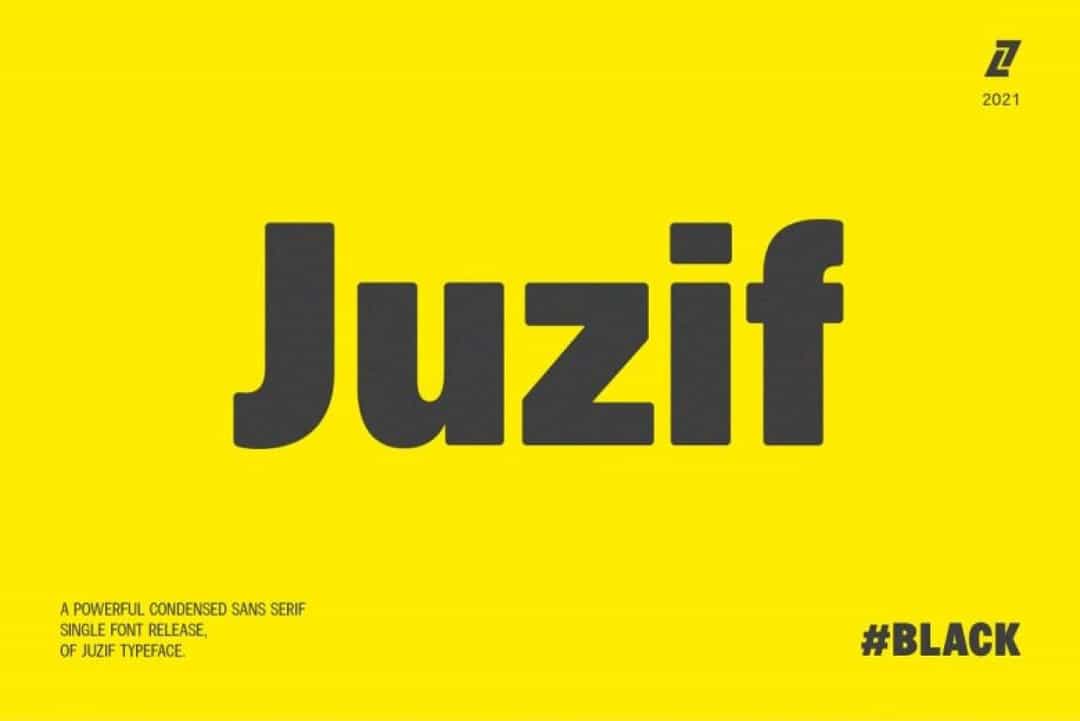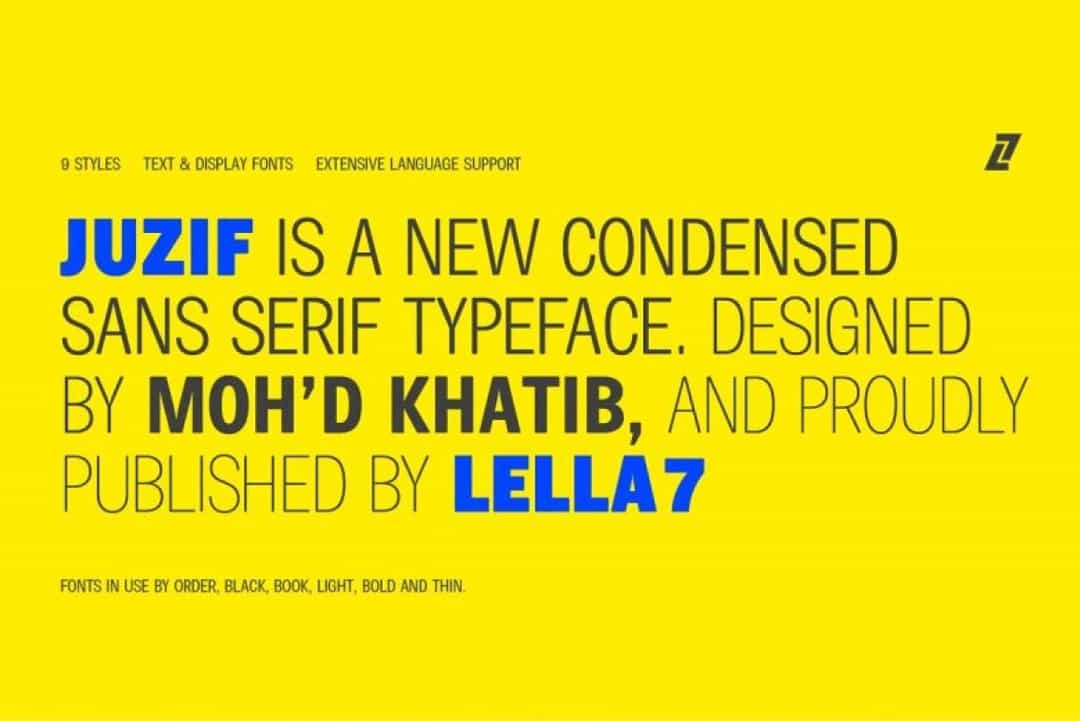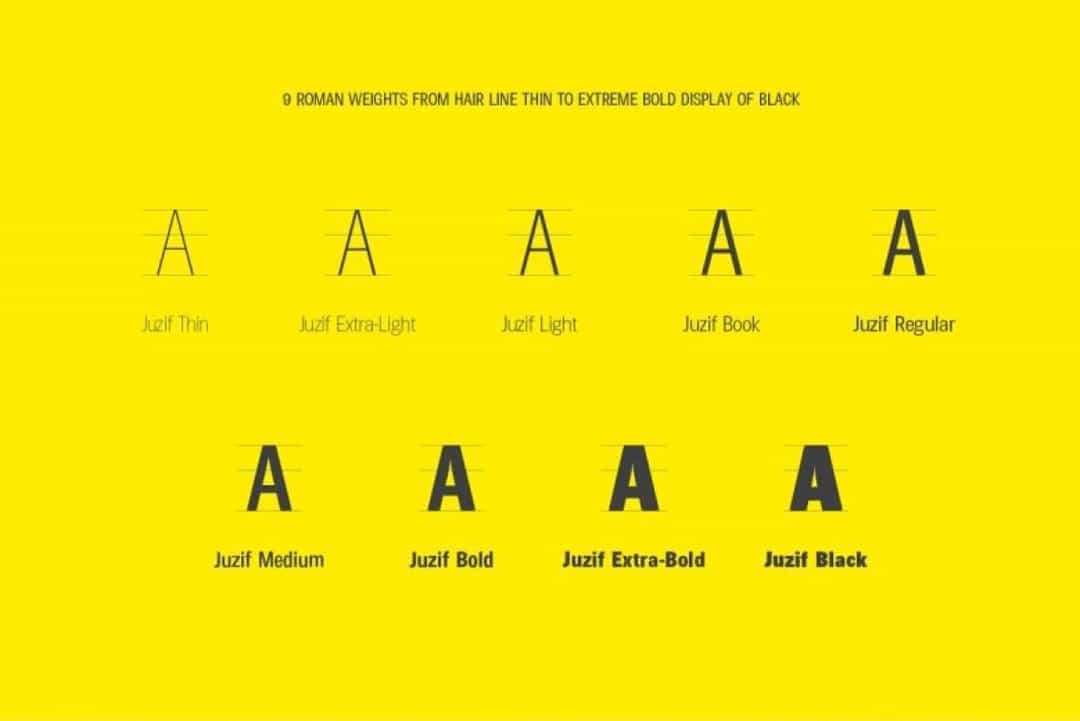
Juzif is a beautiful simple yet bold and simple Sans Serif font designed for display. Easily matching to various designs, Juzif stands out against its peers with ease and is sure to inspire creative thinking in any design concept. Give Juzif your creative attention for inspiring design inspiration today and witness it work its magic!